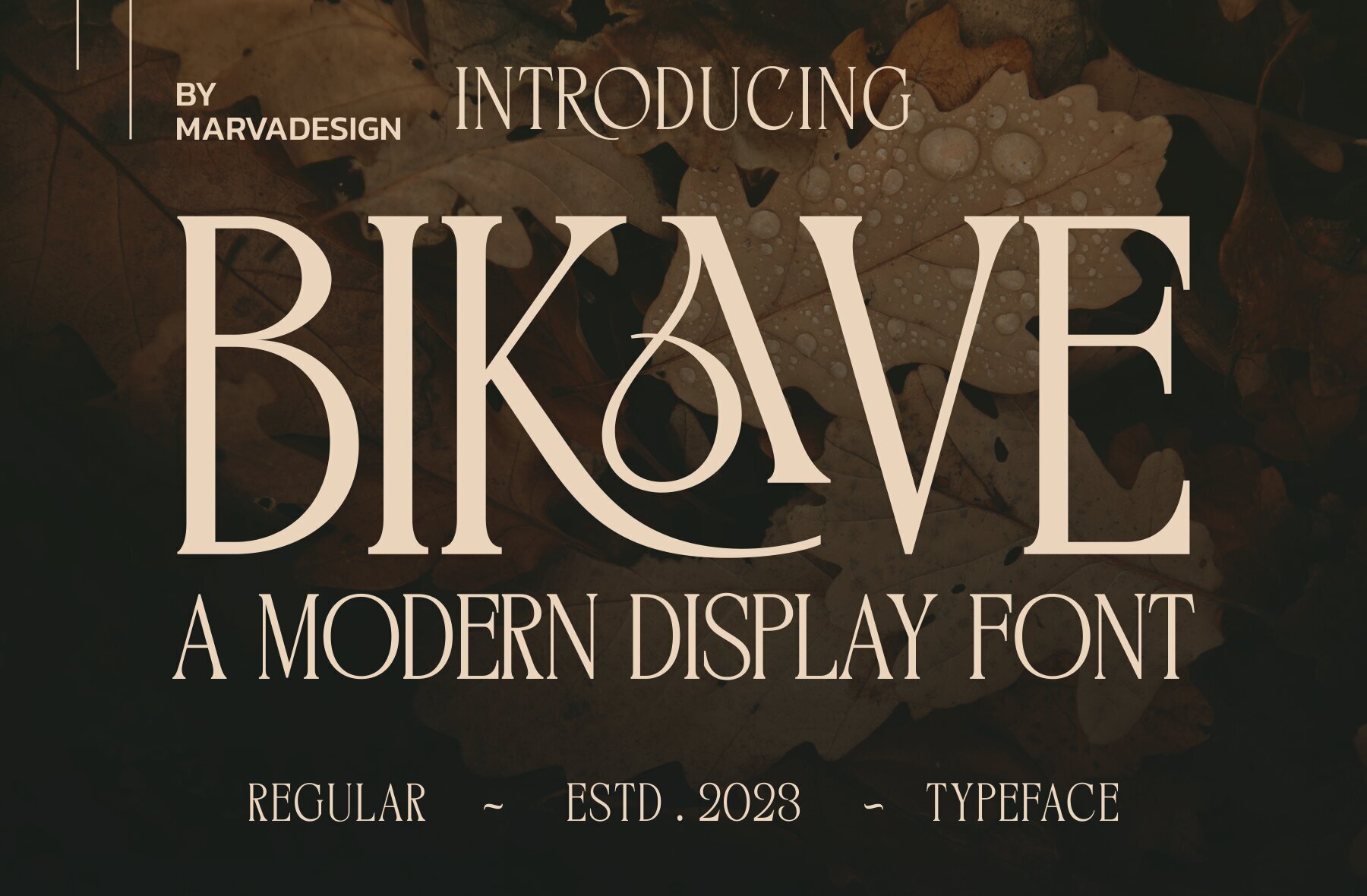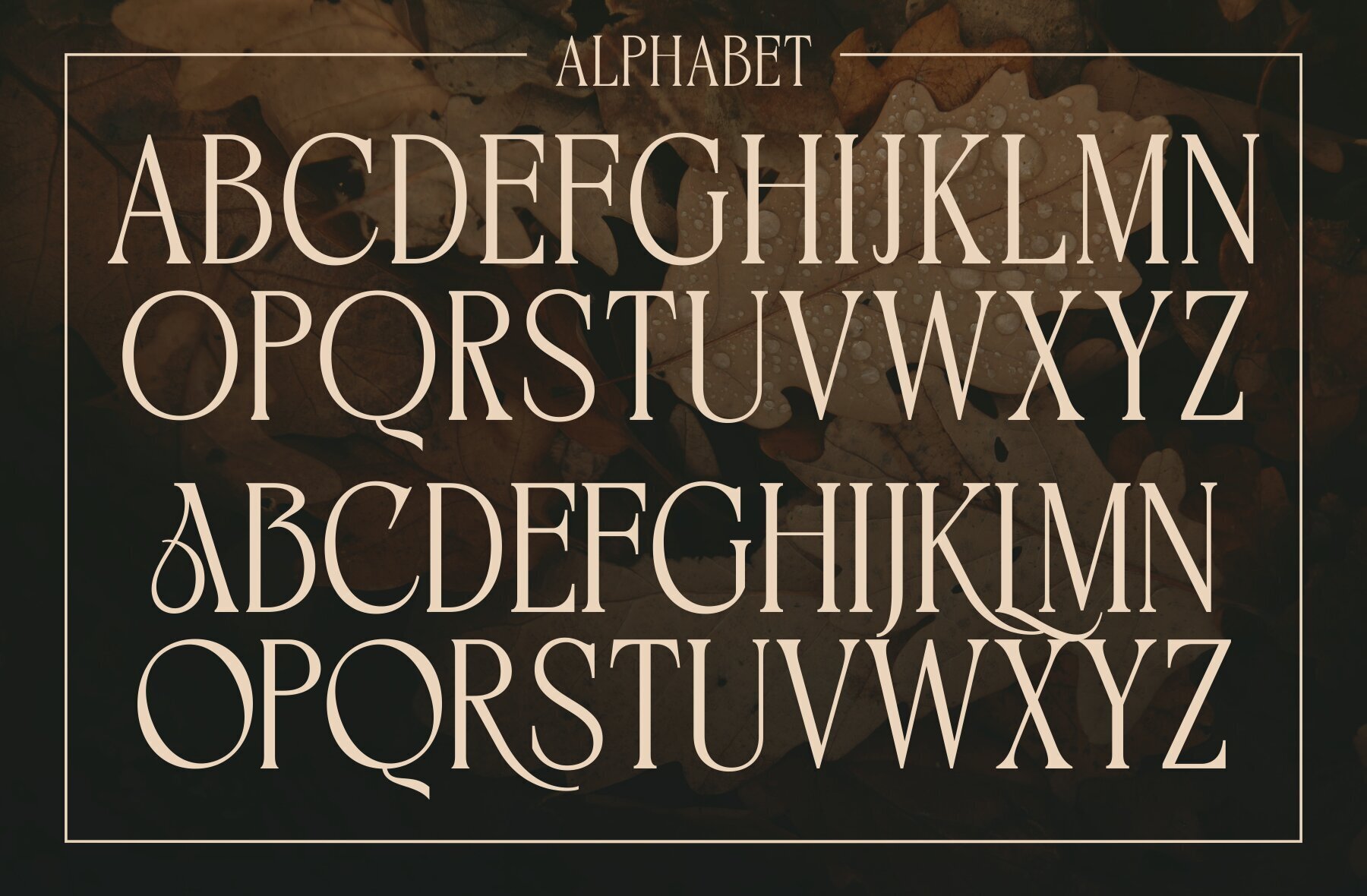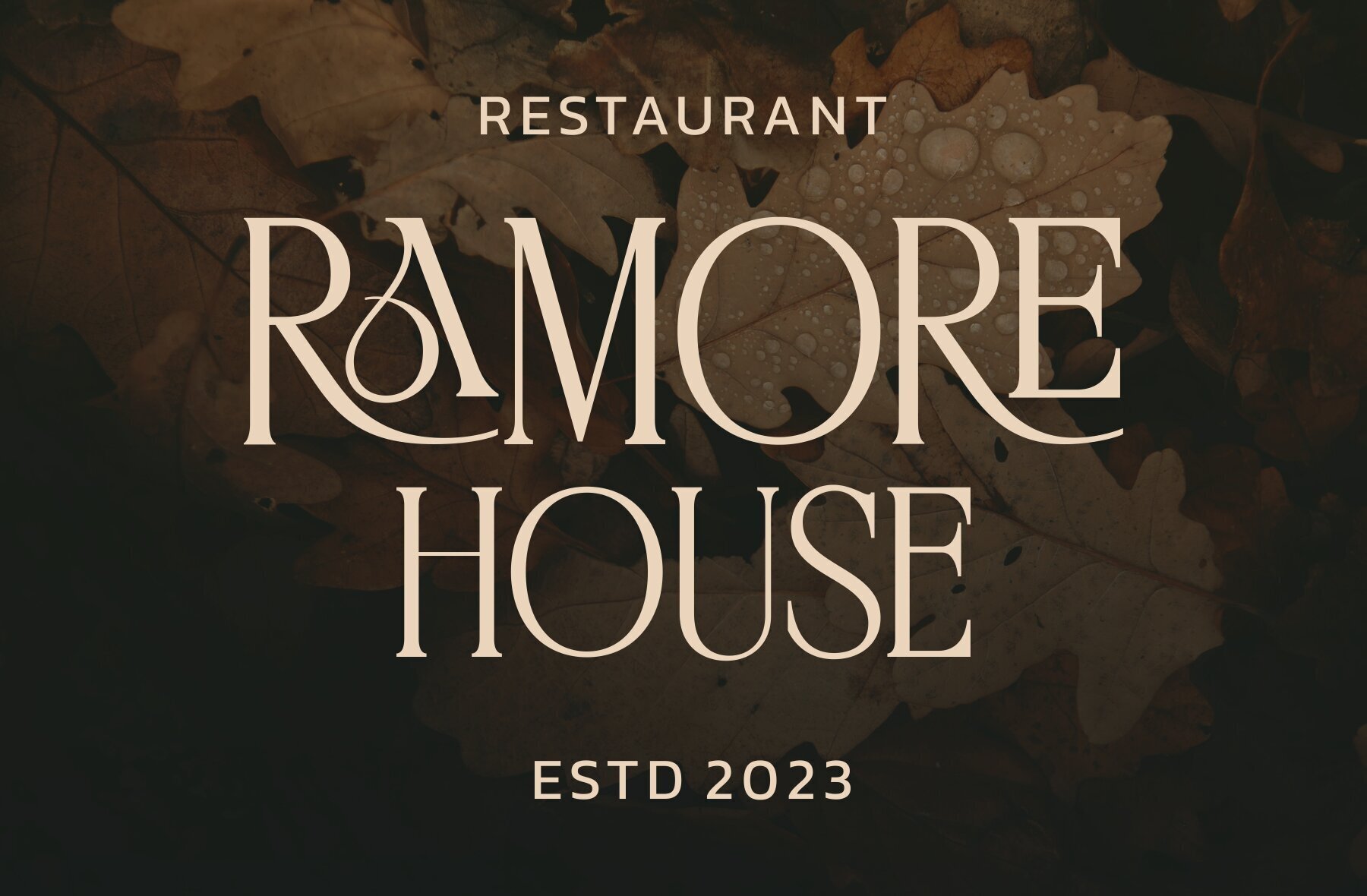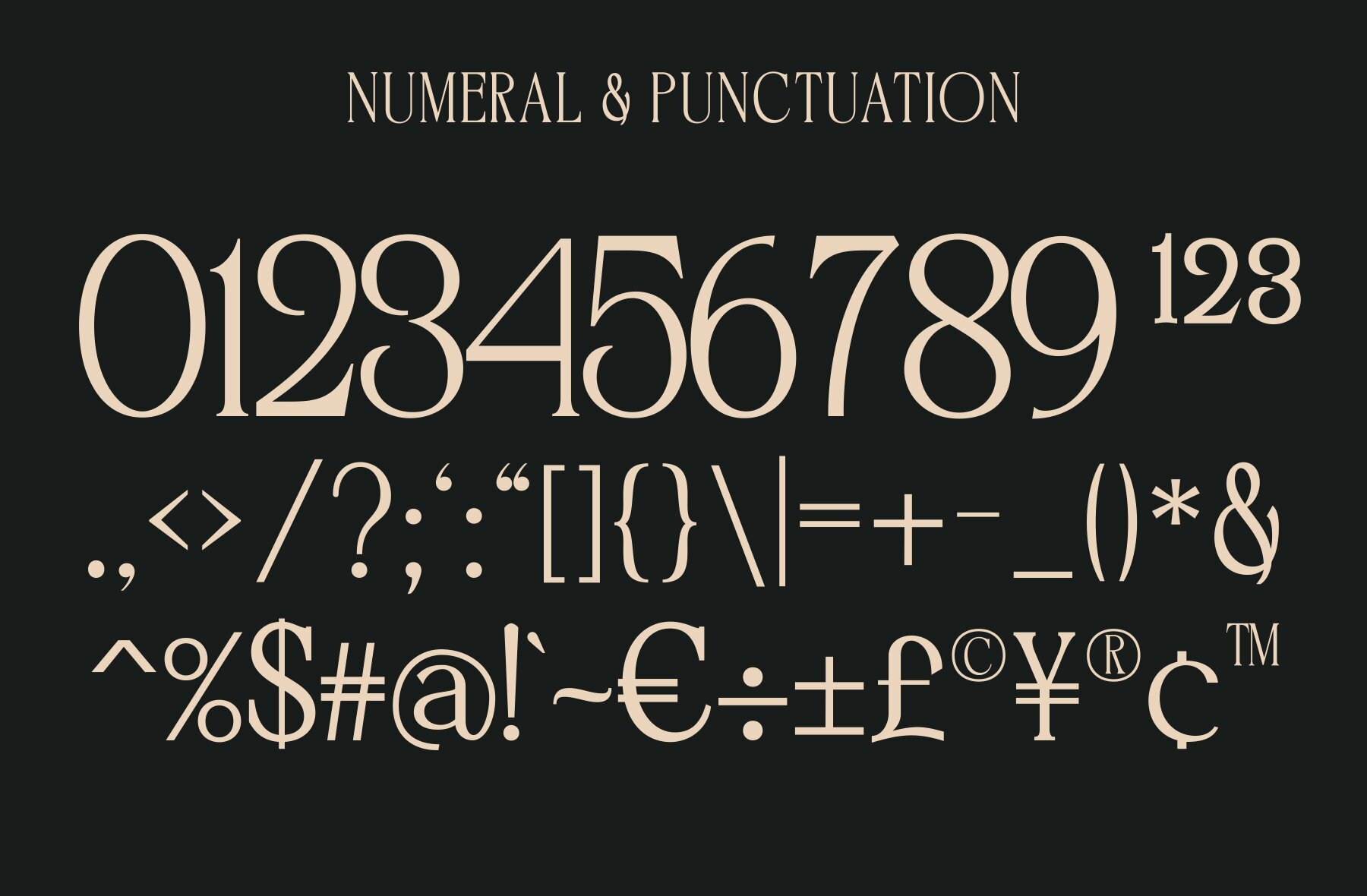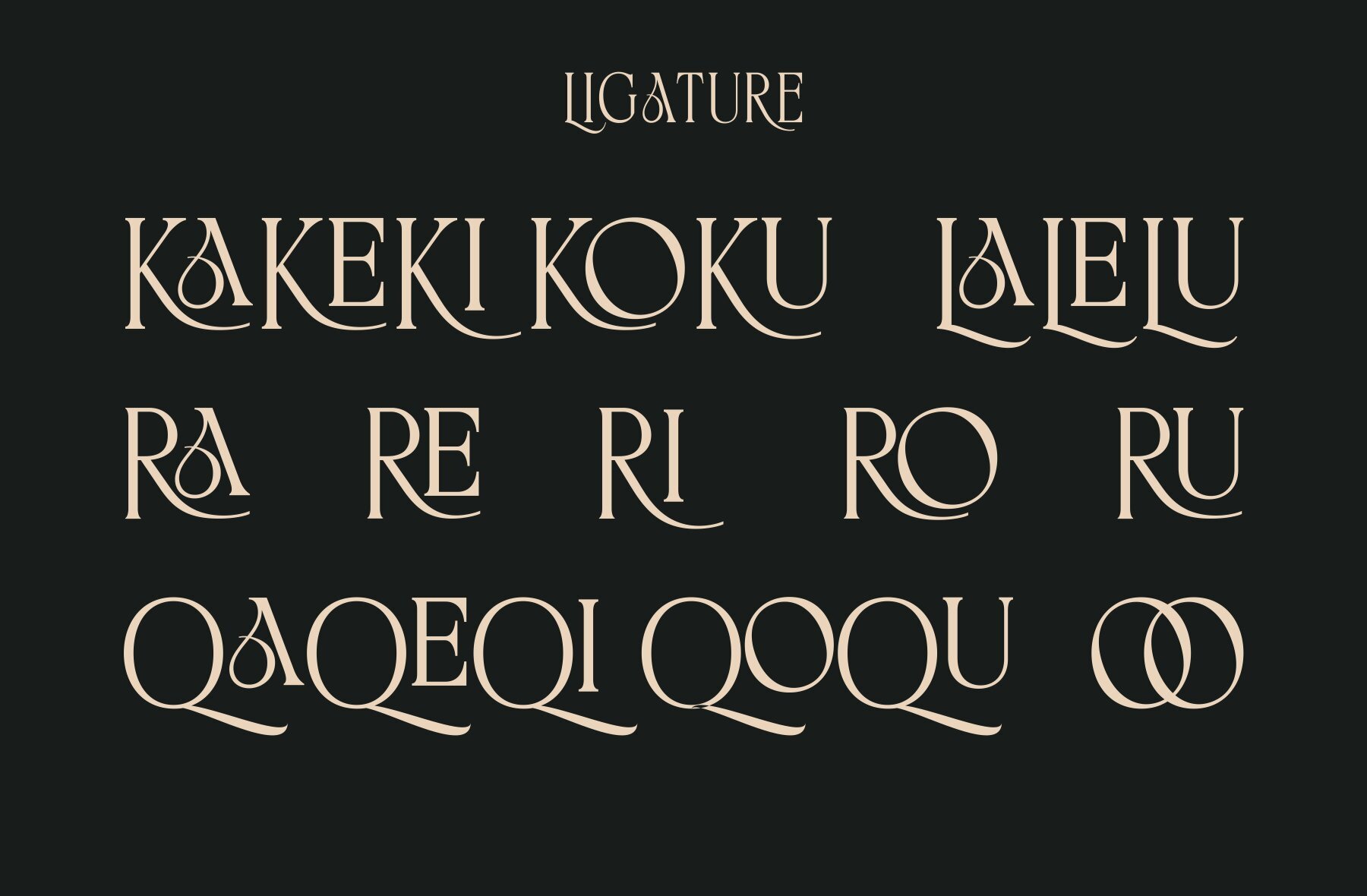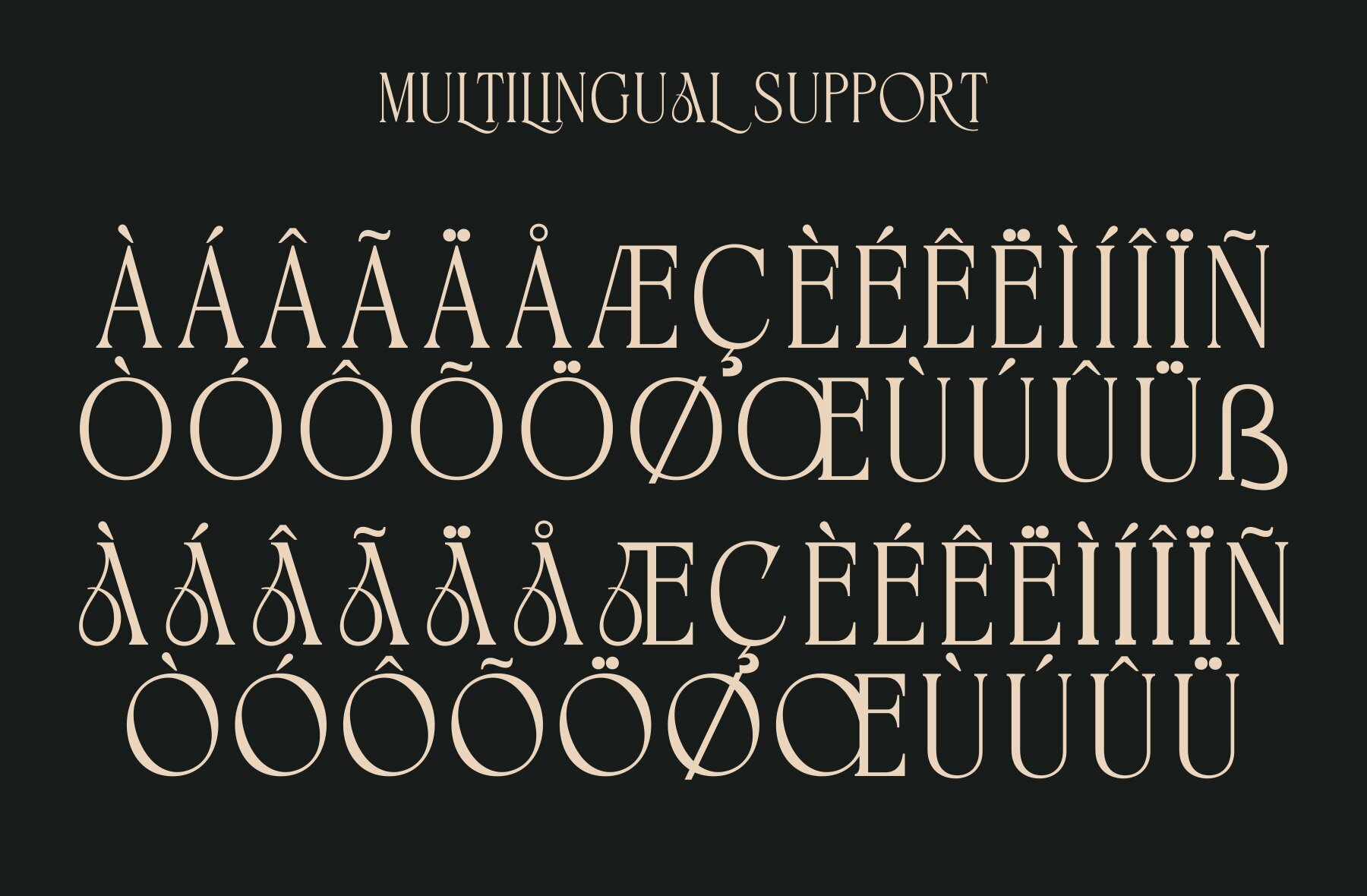
Bikave Font
BIKAVE Regular
The Bikave Font is a striking choice for a range of branding projects. Its bold and authentic style makes it ideal for logos, t-shirt designs, product packaging, and much more. Bikave stands out in diverse contexts, providing a modern and powerful aesthetic.Bikave: Bold and Authentic Display Font